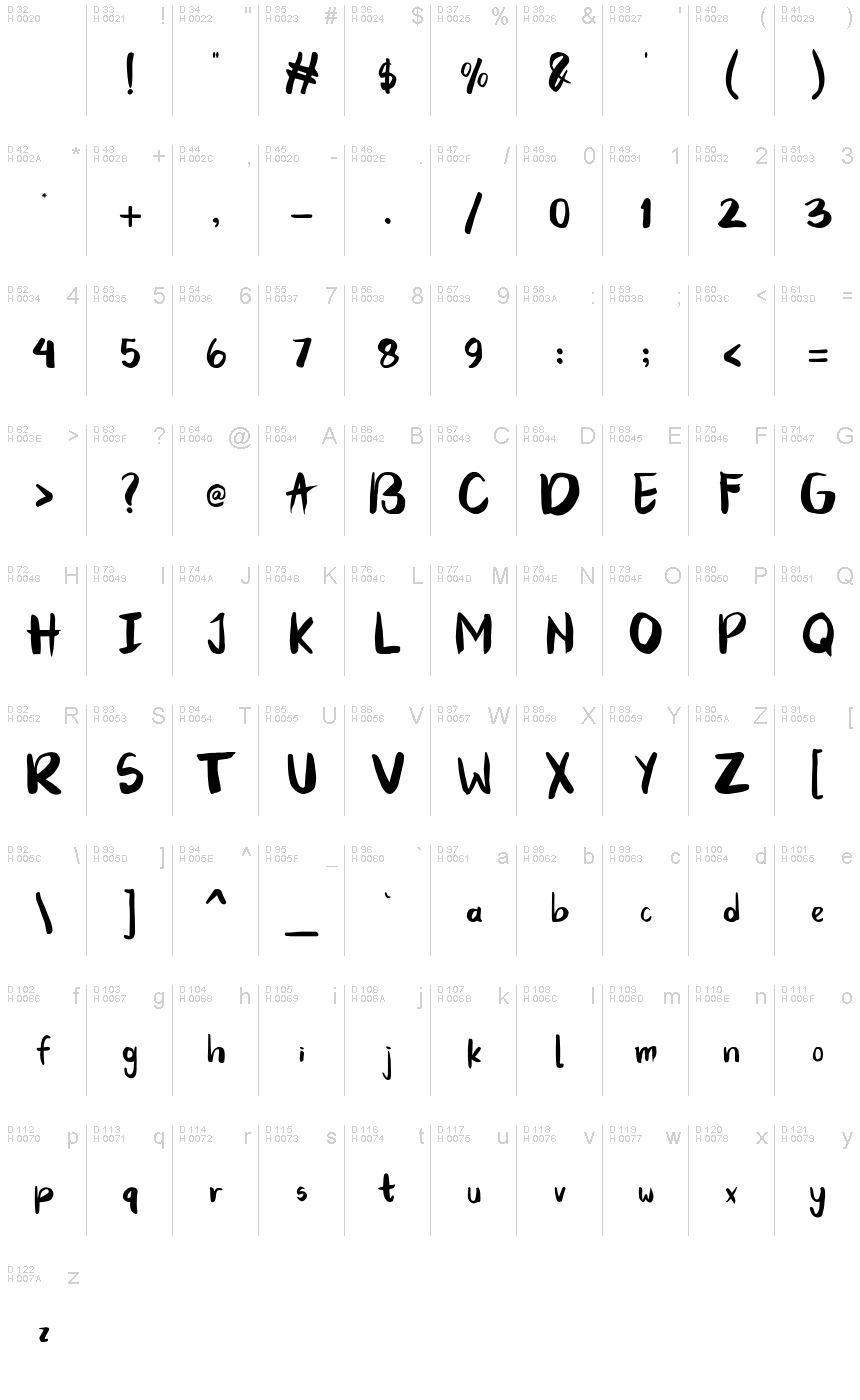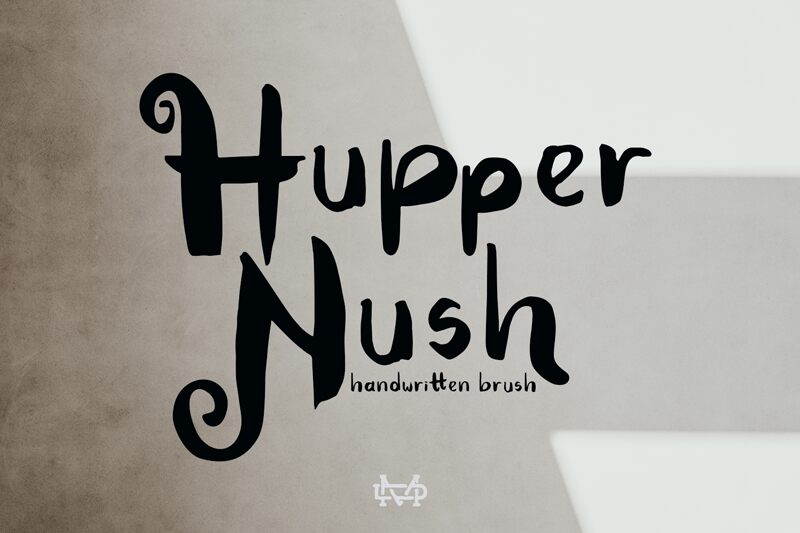
Hupper Nush Demo Regular
Hupper Nush font by madeDeduk is a contemporary brush font with a casual look and an expressive character. Modern in its visual appearance, the font grounds itself in a beautiful handwritten aesthetic that bestows an artistic touch whenever used. This elegance can be urgent for minimalistic projects that aim to rise above the crowded digital space or physical world.